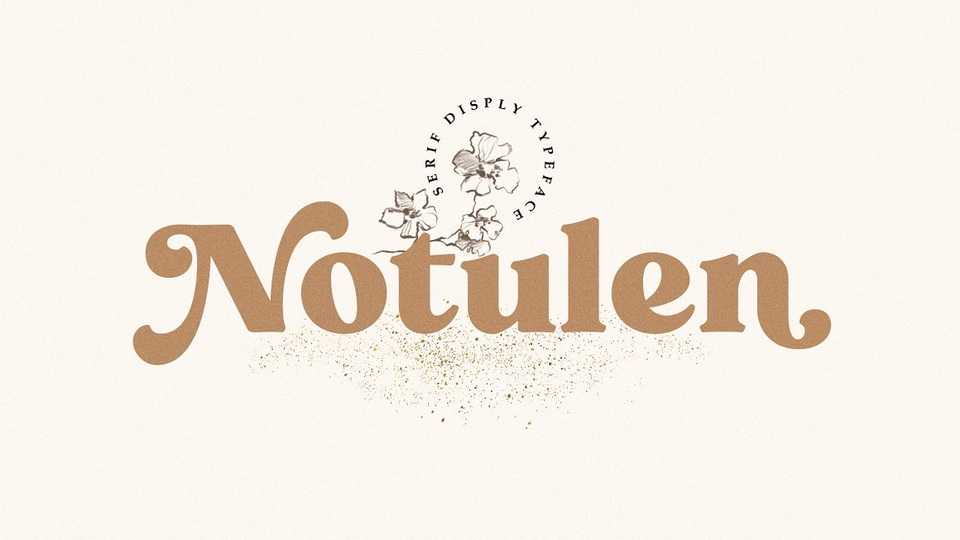
Download Notulen font, a display serif typeface with an extra bold style and nicely balanced curves. Notulen is inspired by classic typography and now come with modern serif nuance.